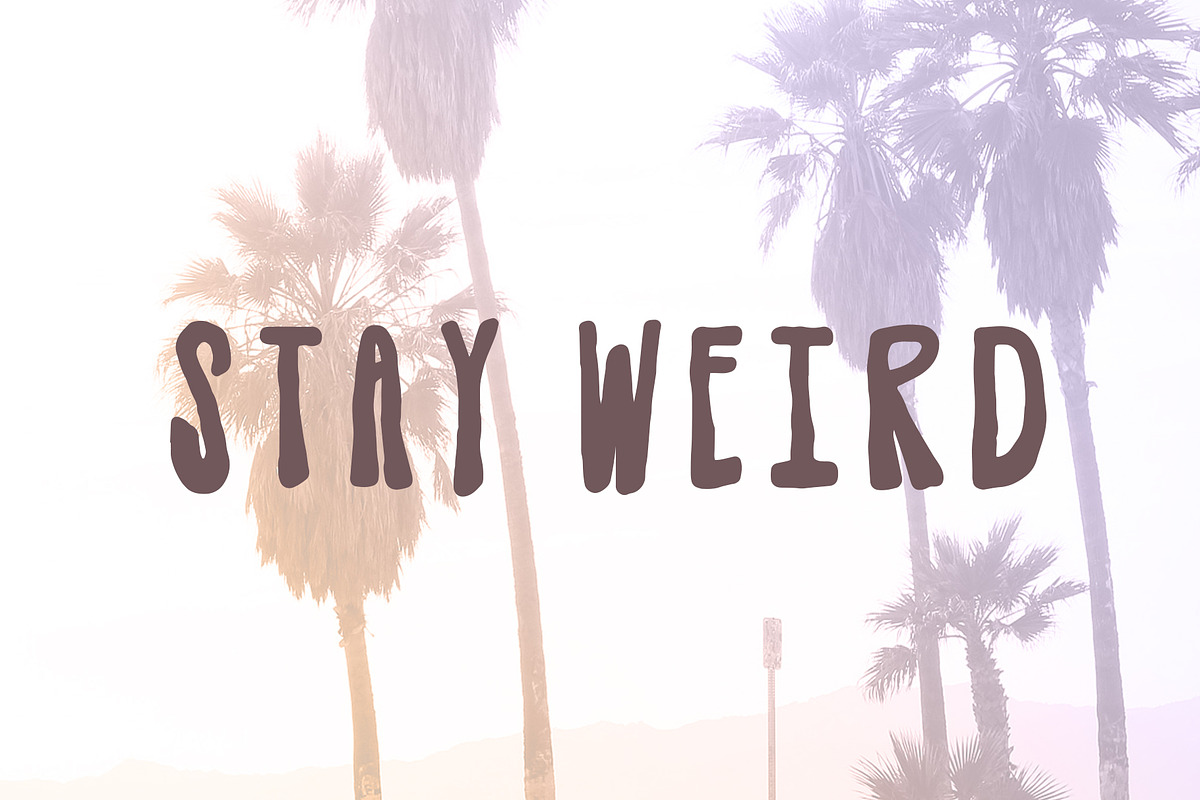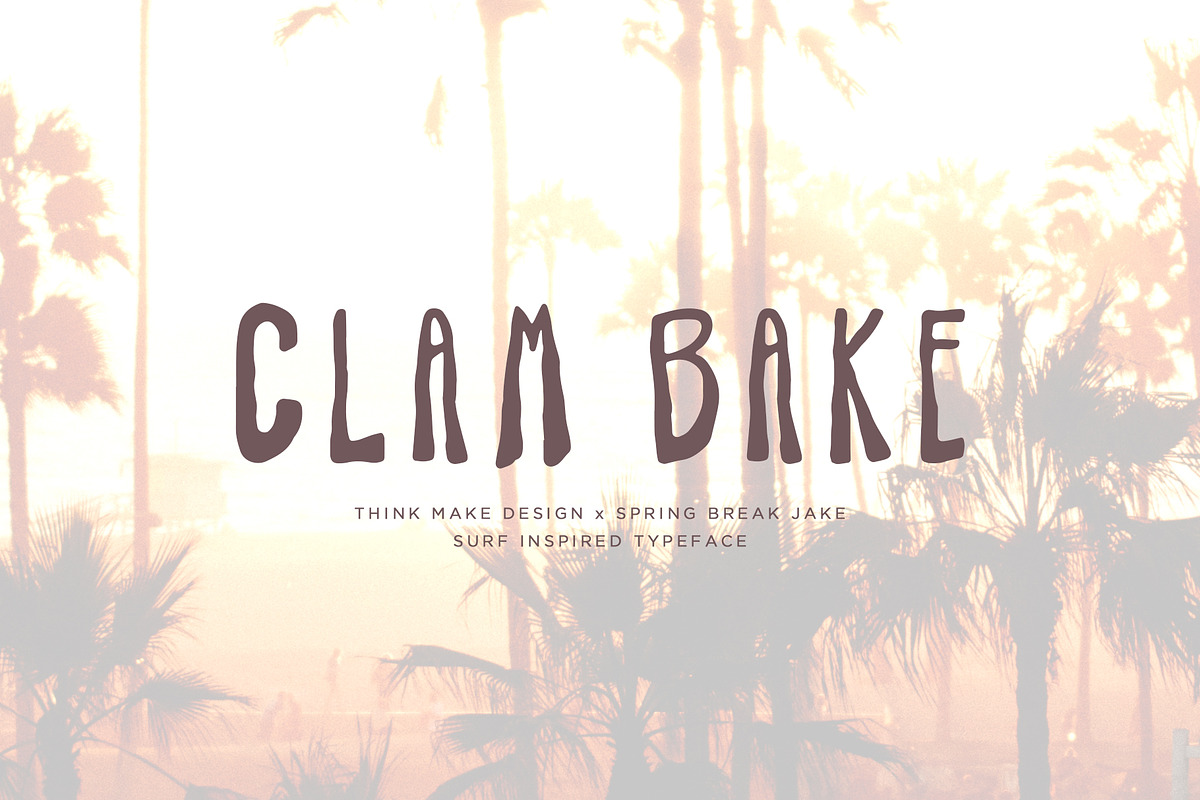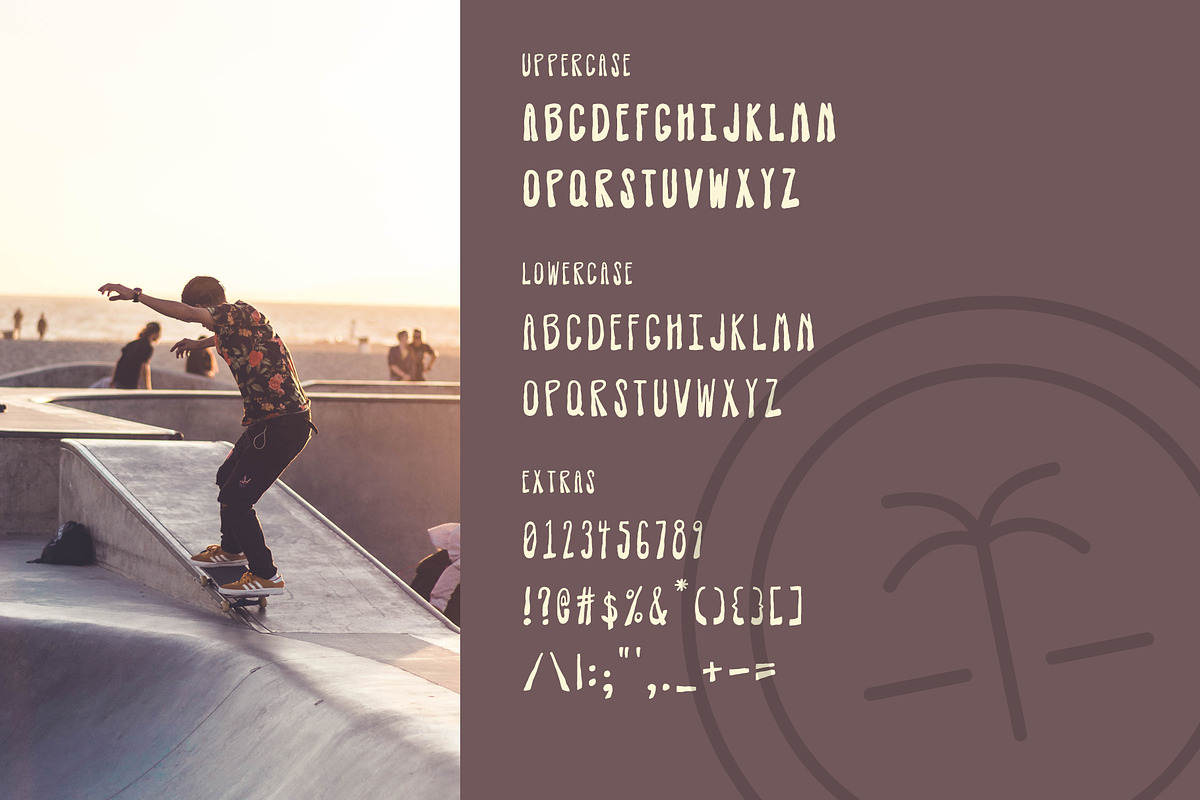
Clam Bake - Surf Font
Created with my awesome, beach bum husband @springbreakjake, Clam Bake is a surf-inspired font that is perfect for edgy design. Create modern logos, party posters, and more with this dual weight sans-serif typeface.